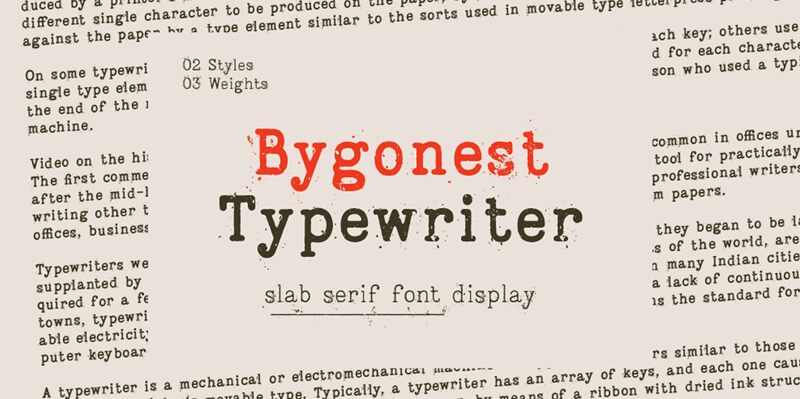
Bygonest Typewriter, designed by Edignwn Type, is a captivating display font that combines the charm of eroded textures with the classic aesthetic of typewriter lettering. With its semi-light weight, it strikes a perfect balance between elegance and authenticity.
This versatile font is an excellent choice for vintage-themed designs, book covers, and movie posters that require a touch of nostalgia. Its eroded style adds character to branding projects, while its typewriter feel lends itself well to creating unique invitations or crafting eye-catching social media graphics.
Bygonest Typewriter brings a timeless appeal to any project it graces.